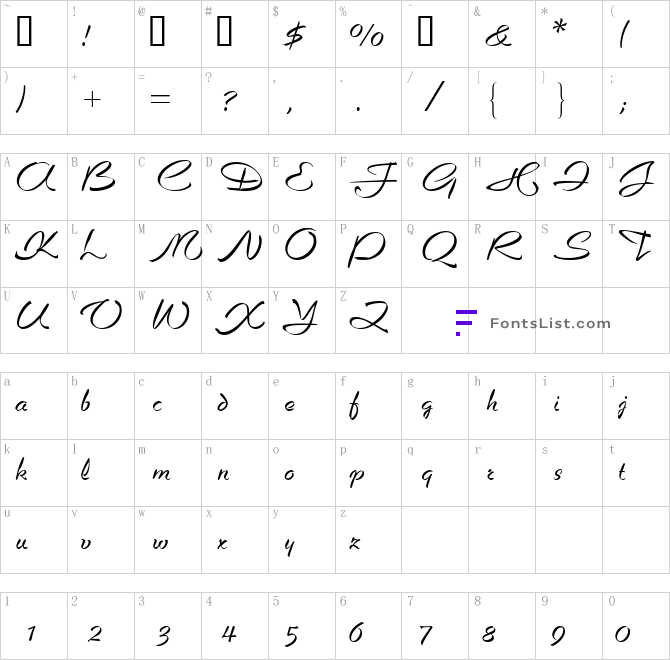
- Font Name:CapriceBQ
CapriceBQ.ttf is a very beautiful artistic font, CapriceBQ.ttf is widely used in the design and printing of various books and pictures,CapriceBQ.ttf has a strong visual impact,CapriceBQ.ttf is a commonly used font in newspapers, magazines and books, and is used in posters, e-commerce Poster design, store design, logo design, font design and other fields.CapriceBQ.